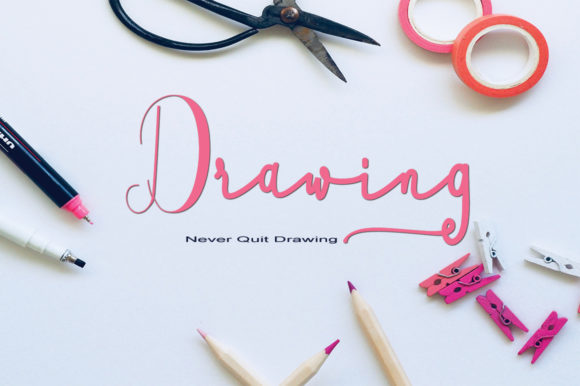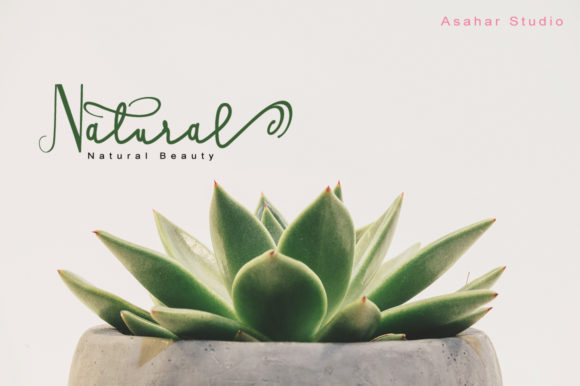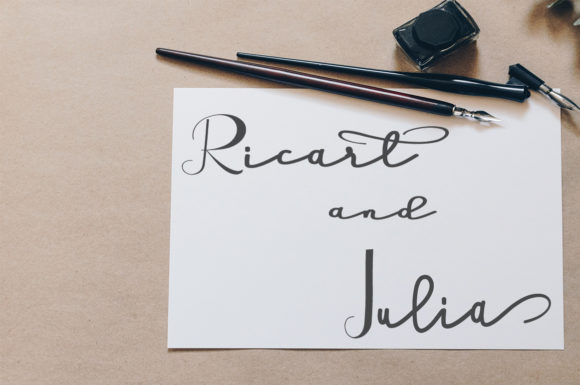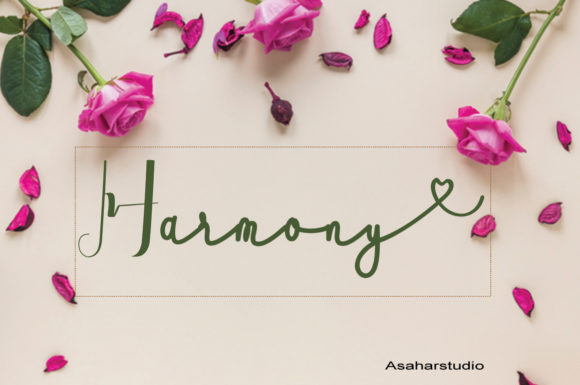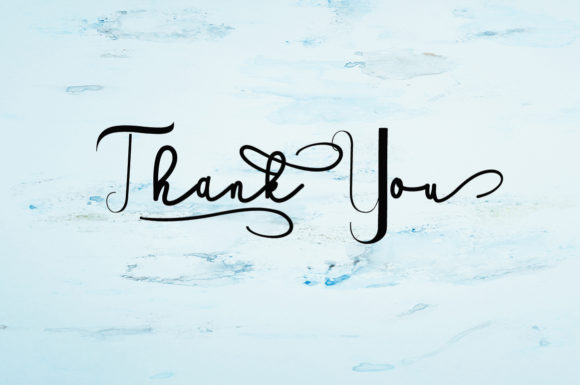
Aquincha Font: Elevate Your Designs with Elegance and Sophistication
Aquincha is a stunning script font that has been making waves in the design community with its bold, fresh, and elegant style. This gorgeous calligraphy font features beautiful swashes that add a touch of sophistication to any design project. Whether you’re a designer, crafter, or DIY enthusiast, Aquincha Font is an excellent choice for those looking to add a fancy feel to their work.
What Makes Aquincha Font Stand Out?
Aquincha Font is not just another script font; it’s a masterpiece that combines elegance, boldness, and freshness. Here are some key features that make it stand out:
- Bold and Fresh: Aquincha Font boasts a bold and fresh style that’s perfect for making a statement. Its unique lettering style is sure to grab attention and leave a lasting impression.
- Gorgeous Swashes: One of the standout features of Aquincha Font is its beautiful swashes. These elegant flourishes add a touch of sophistication and elegance to any design project.
- Script Font: As a script font, Aquincha features connected letters that create a flowing, cursive effect. This makes it perfect for designs that require a personal touch, such as invitations, quotes, and branding materials.
Uses of Aquincha Font
Aquincha Font is an incredibly versatile font that can be used in a wide range of design projects. Here are some ideas to get you started:
- Wedding Invitations: Add a touch of elegance and sophistication to your wedding invitations with Aquincha Font. Its beautiful swashes and bold style make it perfect for formal events.
- Branding Materials: Use Aquincha Font to create stunning branding materials, such as logos, business cards, and letterheads. Its unique style is sure to make your brand stand out.
- Social Media Graphics: Add a touch of elegance to your social media graphics with Aquincha Font. Use it to create stunning quotes, posters, and flyers that are sure to grab attention.
- Crafting Projects: Aquincha Font is also perfect for crafters who love to create handmade cards, scrapbook pages, and other paper crafts. Its beautiful swashes and bold style make it a great addition to any crafting project.
Tips for Using Aquincha Font
To get the most out of Aquincha Font, here are some tips to keep in mind:
- Pair it with Simple Fonts: Aquincha Font is a bold and elegant font, so it’s best to pair it with simple fonts that won’t compete with its style.
- Use it for Headlines: Aquincha Font is perfect for headlines and titles, so use it to make a statement in your designs.
- Experiment with Swashes: Don’t be afraid to experiment with the swashes in Aquincha Font. You can use them to add a touch of elegance to your designs or to create a more dramatic effect.
Aquincha Font is a stunning script font that features gorgeous swashes and a bold, fresh style. Its elegance and sophistication make it perfect for a wide range of design projects, from wedding invitations to branding materials. Whether you’re a designer, crafter, or DIY enthusiast, Aquincha Font is an excellent choice for those looking to add a fancy feel to their work. So why not give it a try and see how it can elevate your designs?